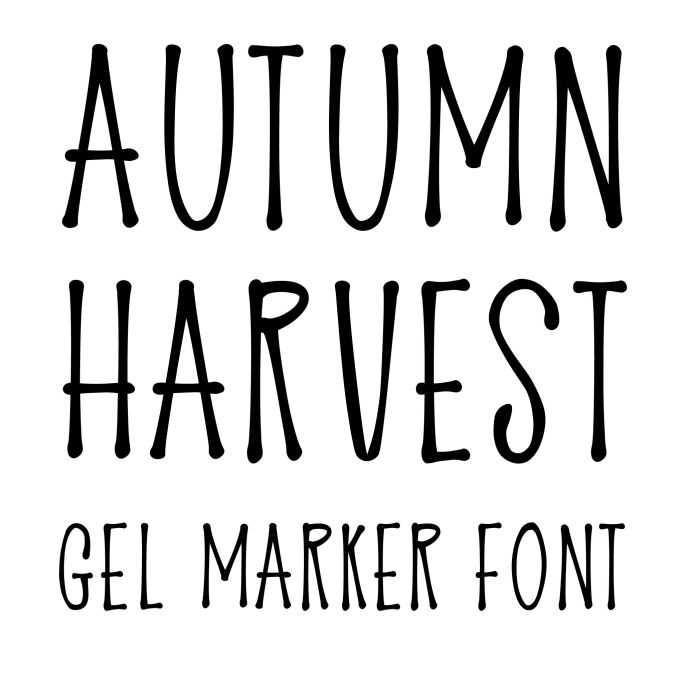
Autumn harvest gel marker font
Cute marker pen handwritten font for Halloween, back to school, autumn crafts, planners, calendars, decoration and personalization projects. All caps.